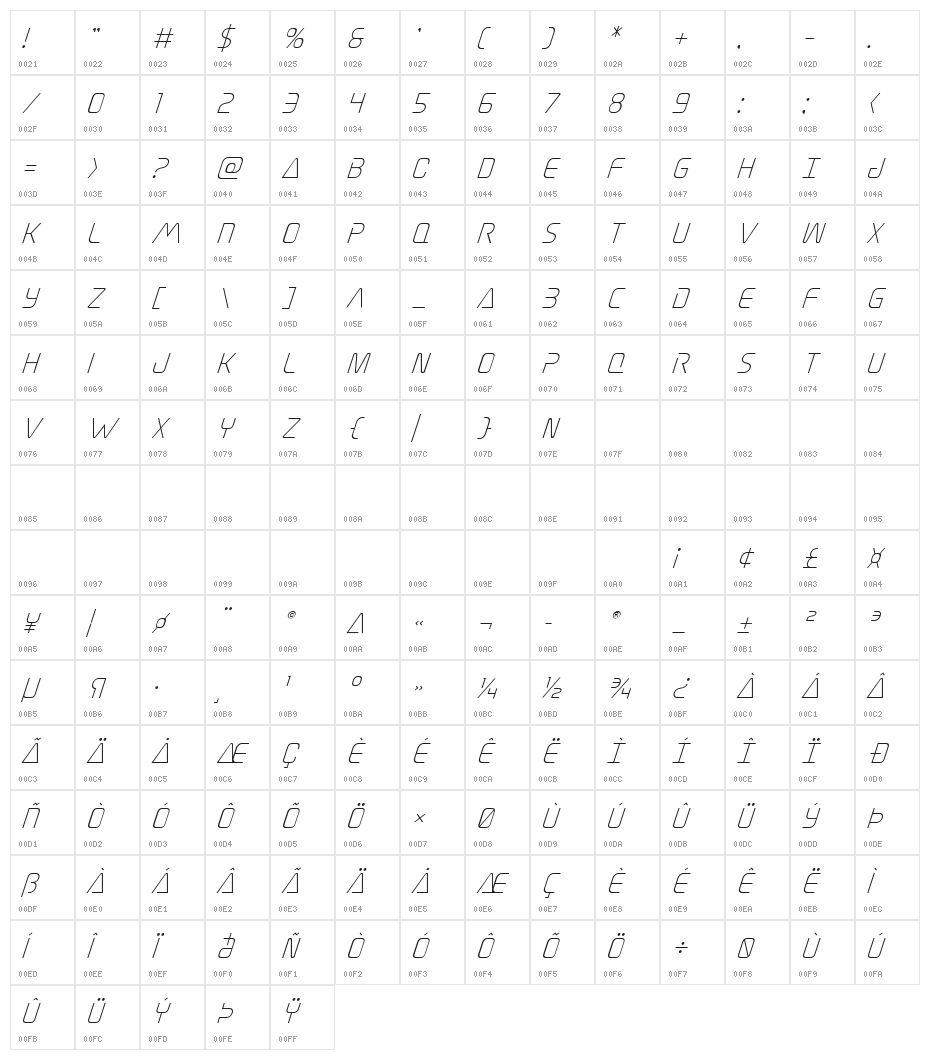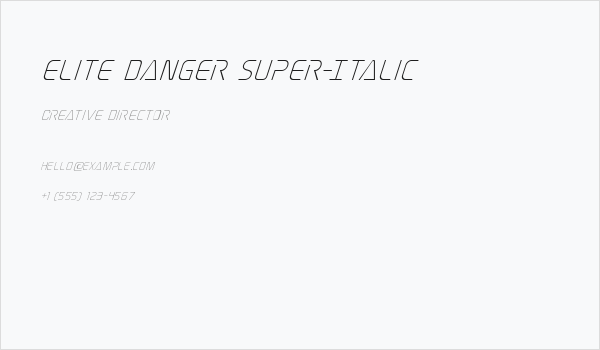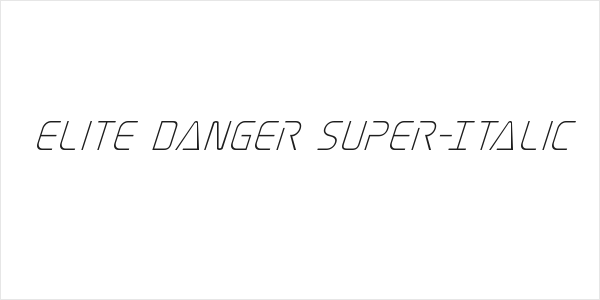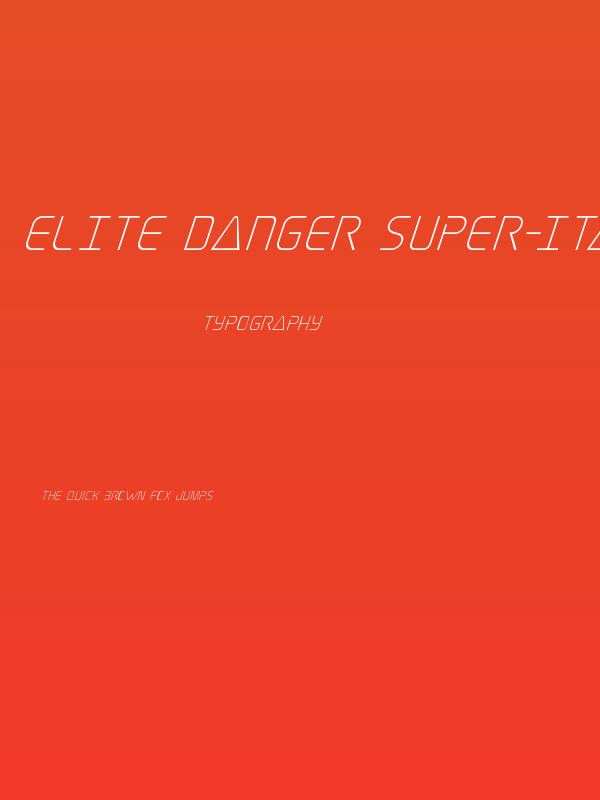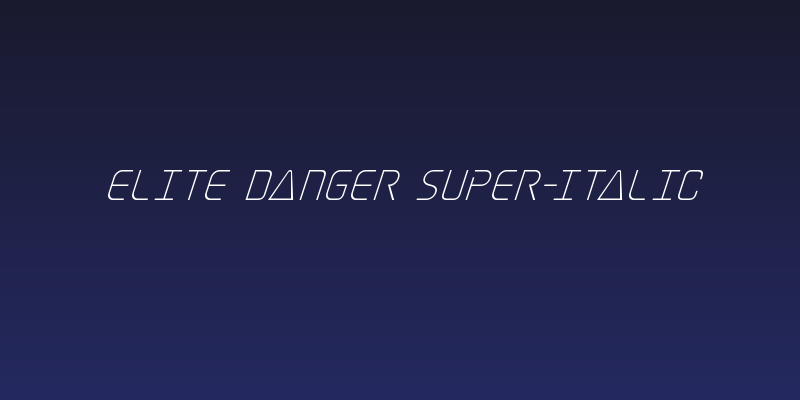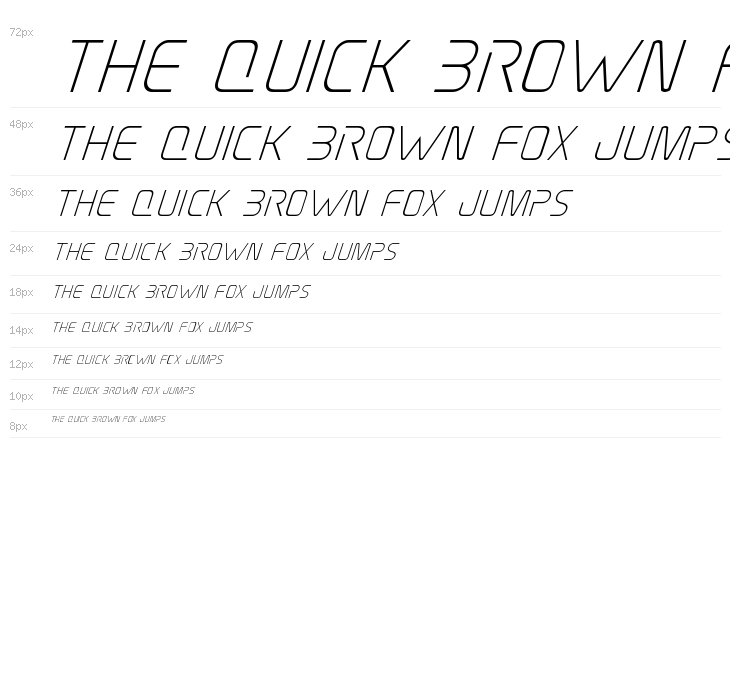
Elite Danger Super-Italic Font
Elite Danger Super-Italic Description
This font features a sleek, futuristic design with a distinct italic slant, giving it a dynamic and modern appearance. The characters are constructed with clean, straight lines and sharp angles, creating a sense of movement and speed. The uppercase and lowercase letters maintain a consistent style, with a geometric influence that is evident in the angular forms. The numerals are equally stylized, matching the overall aesthetic of the alphabet. Special characters are included, maintaining the same angular and streamlined design. This font is ideal for projects that require a contemporary and edgy look.
| Proposed Projects | Ideal for sci-fi themed designs, technology branding, video game interfaces, and modern advertising. |